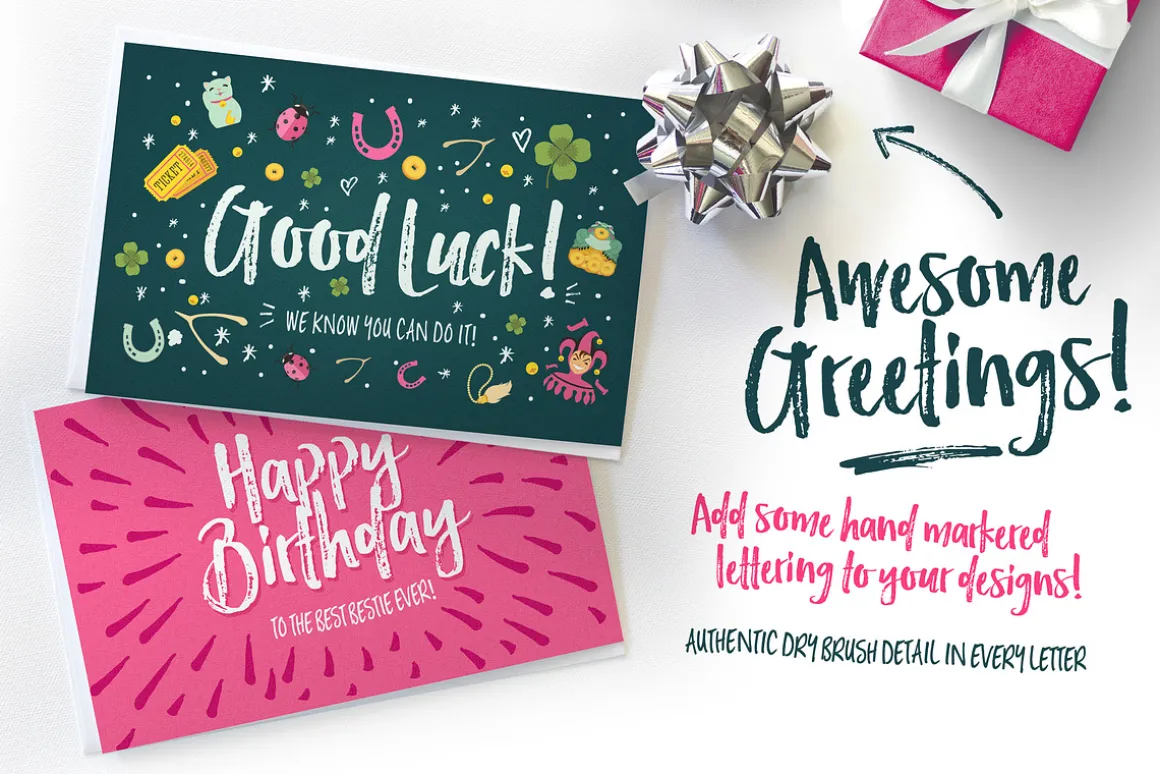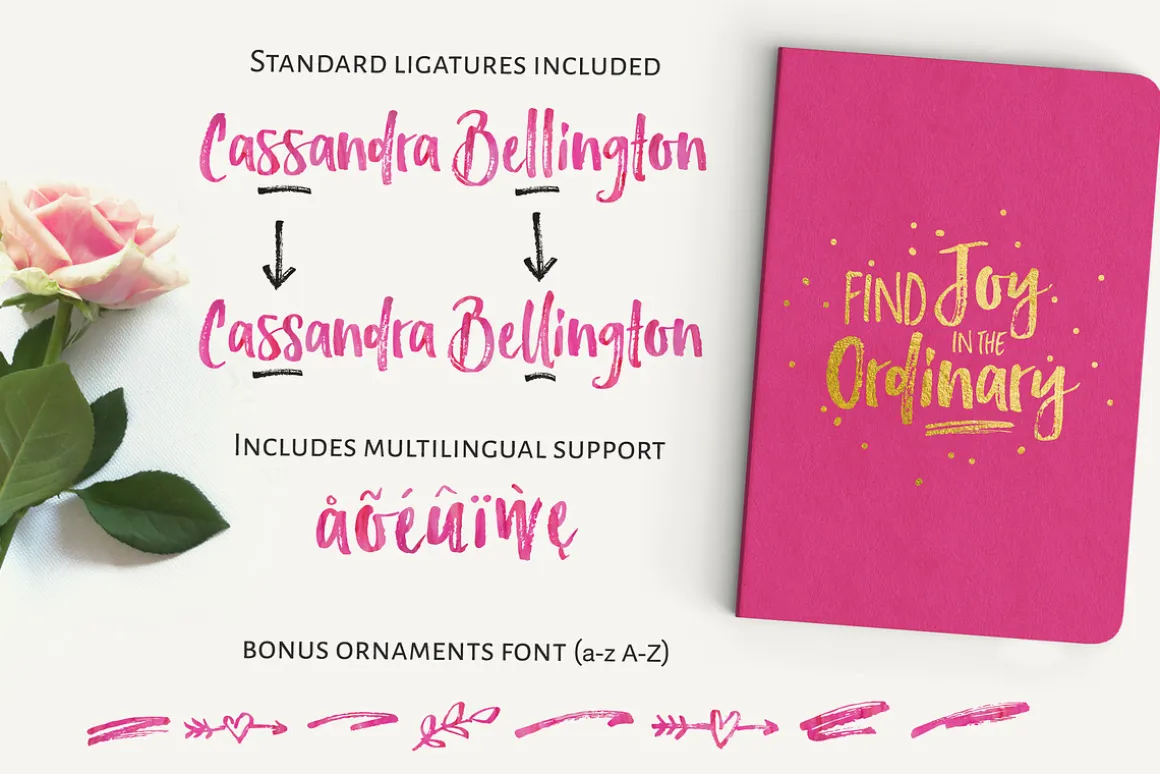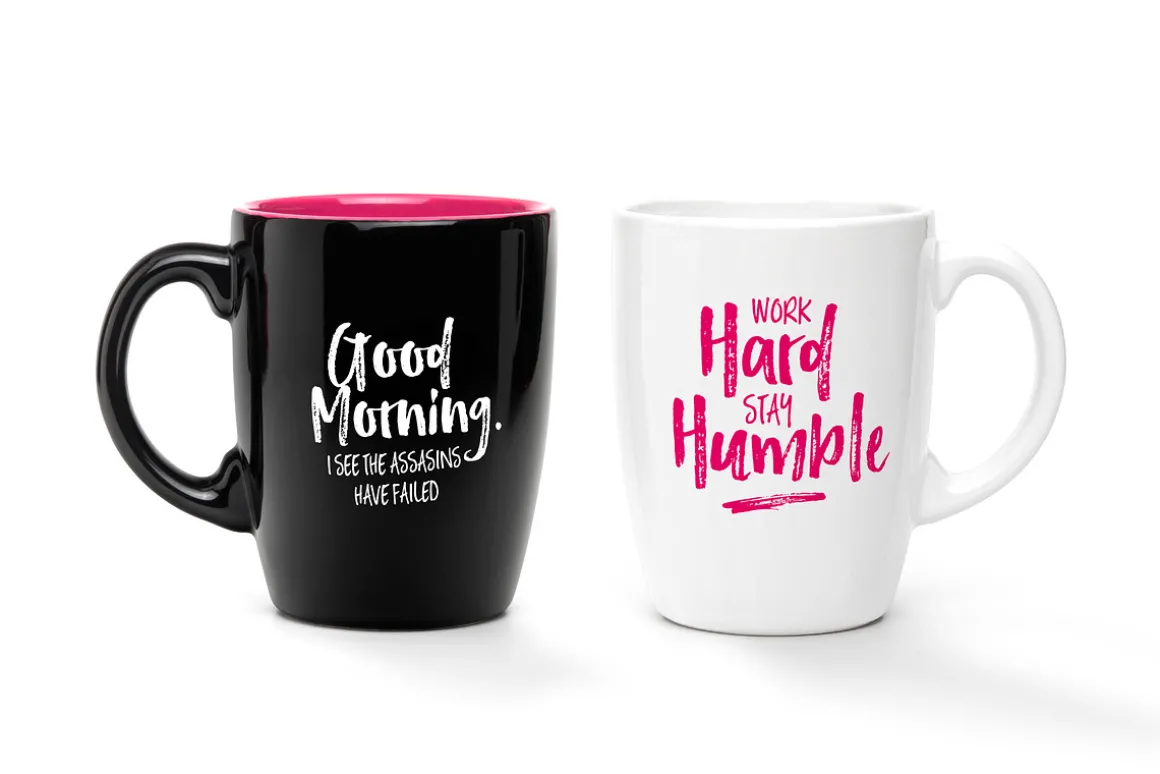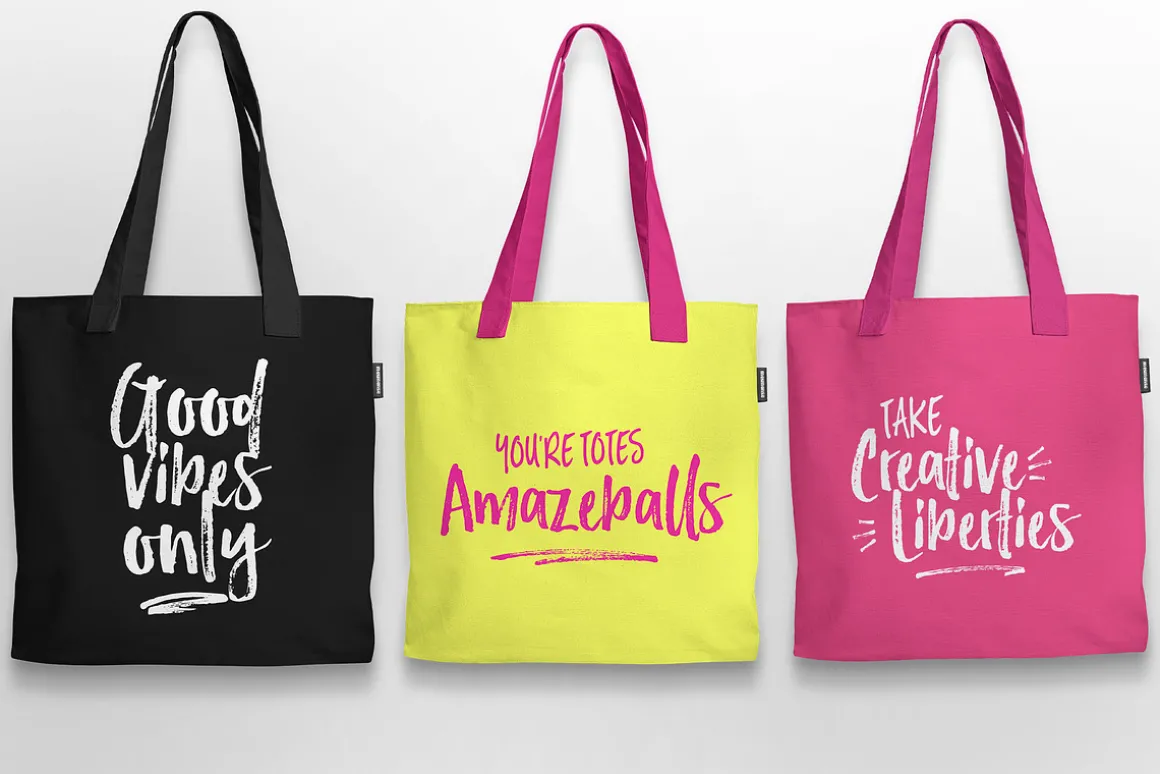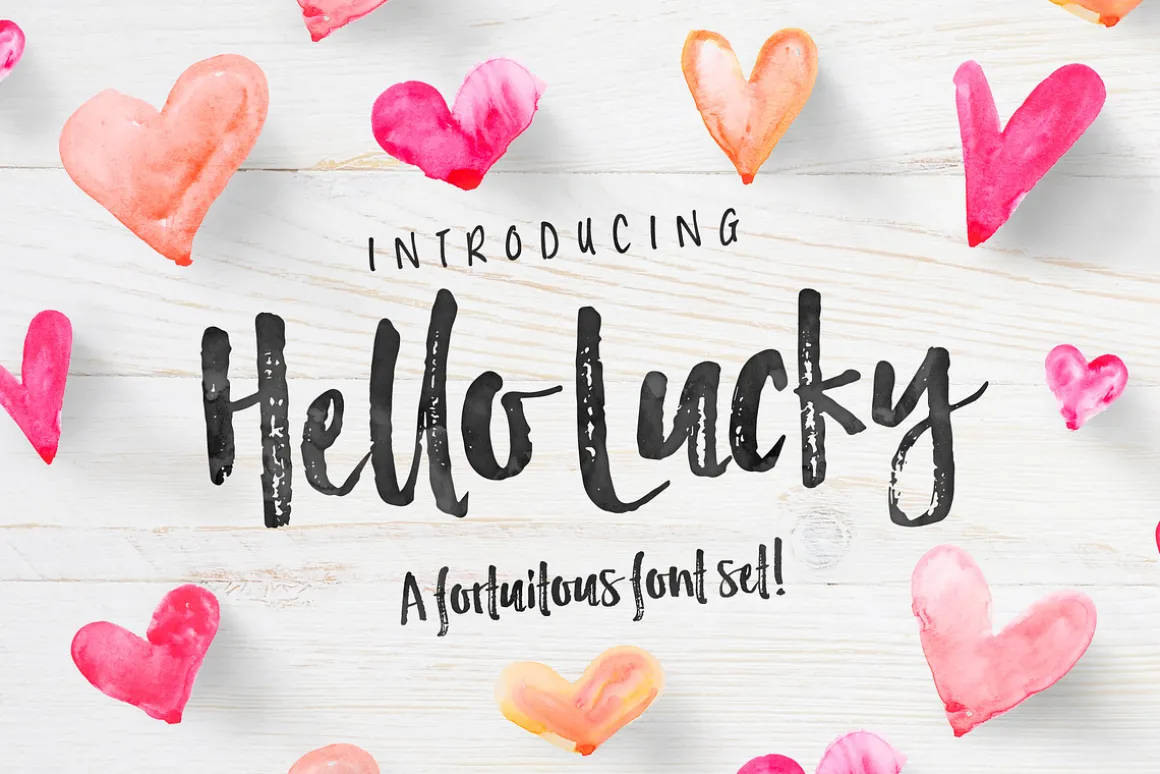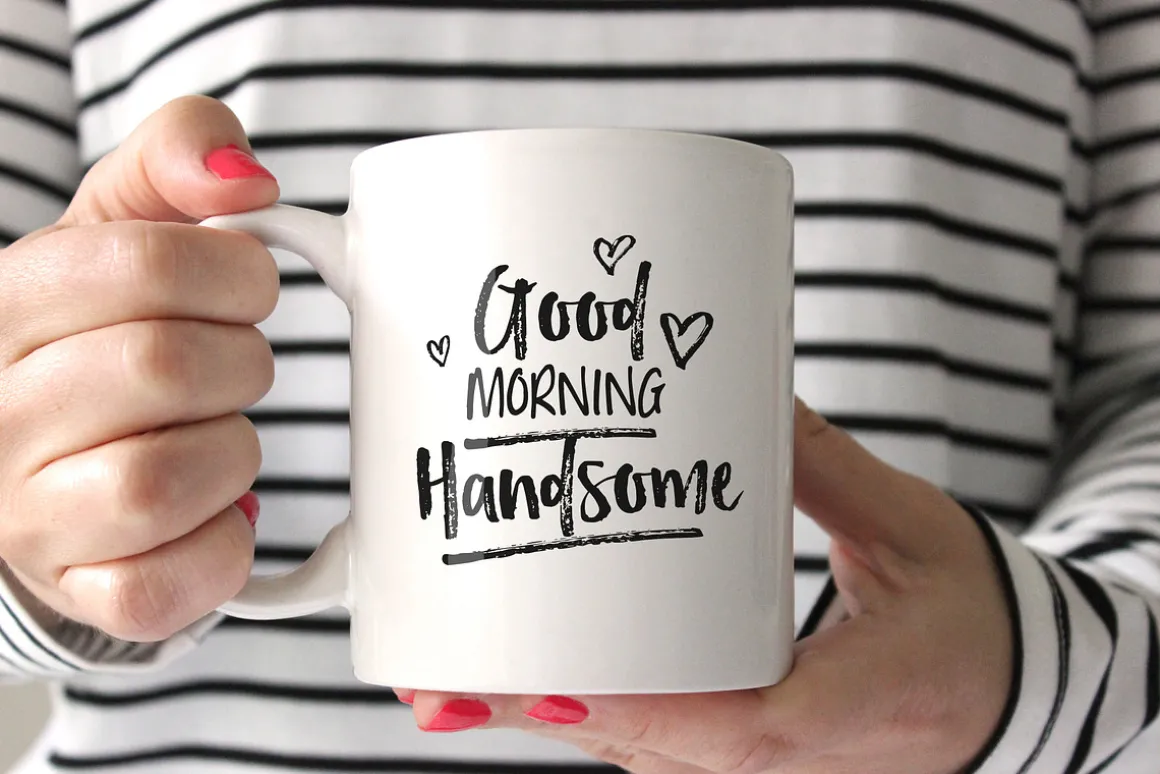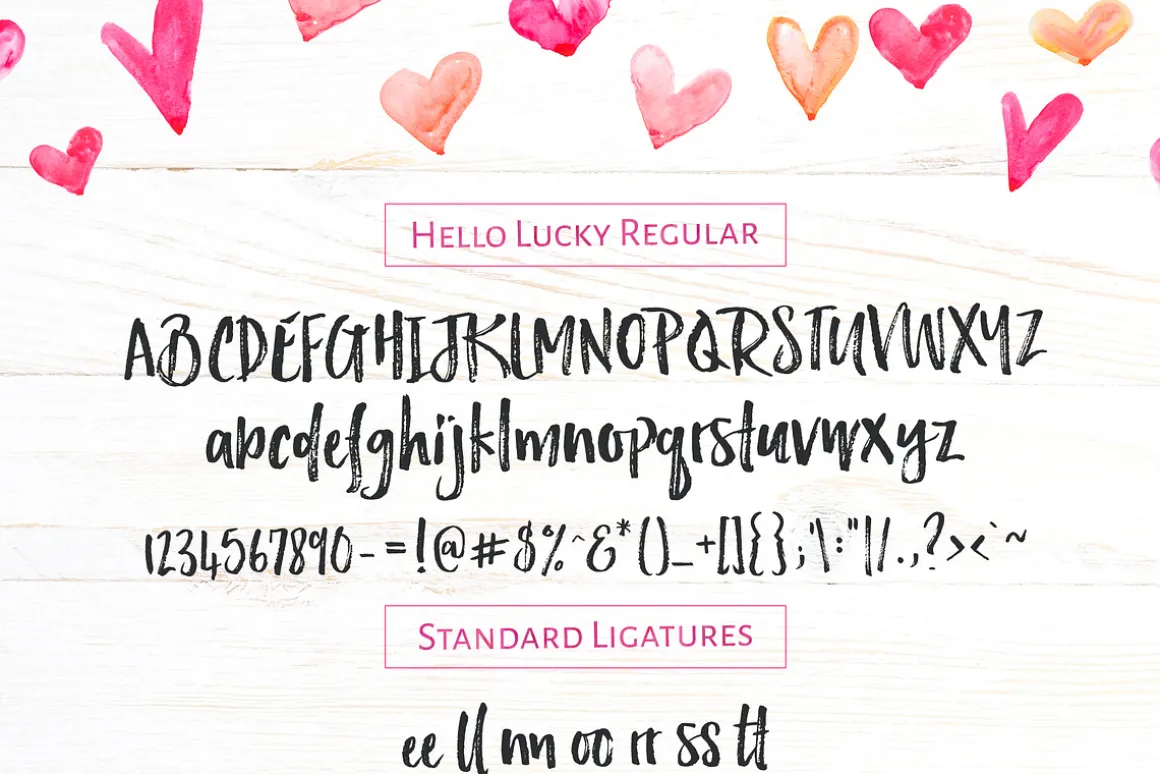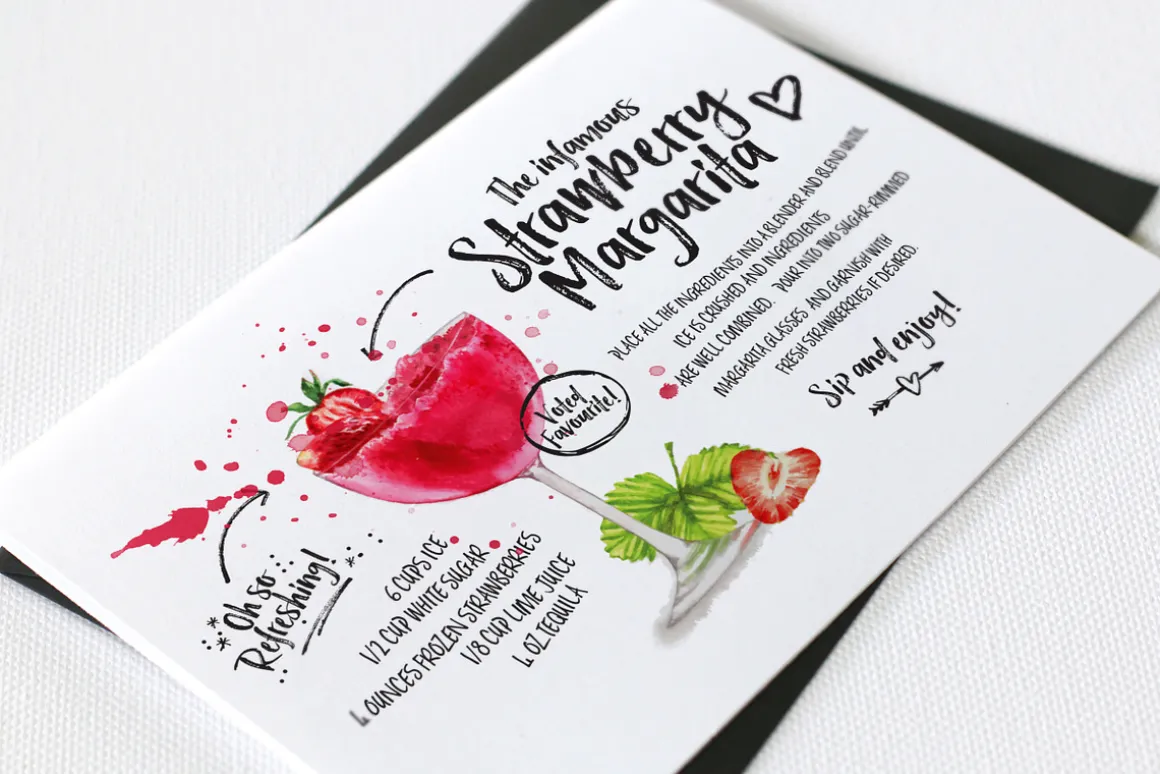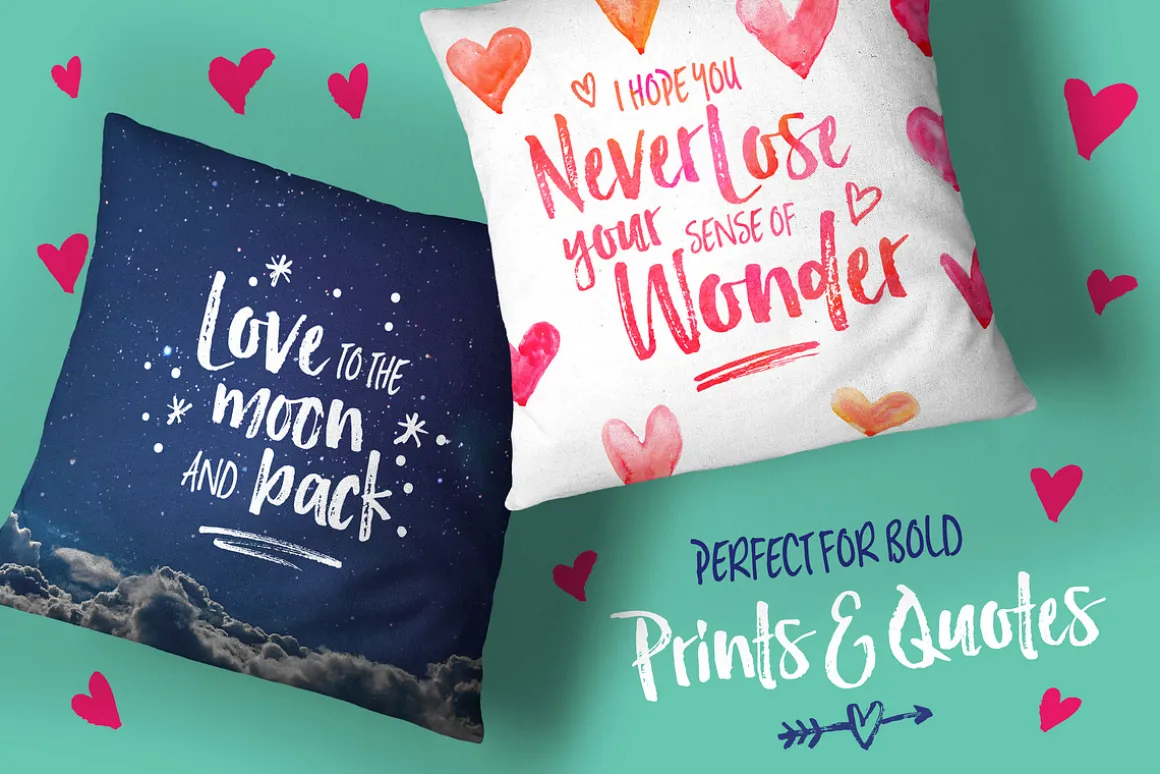
Introducing Hello Lucky! A cheeky little dry marker font, with an inky complimentary font, and oodles of marker-made decorative ornaments.
Just type out your design , and then make it pop with the bonus font , and extra scribbles, doodles and rushed underlines from the ornaments font 🙂
On its own,or with the extras – Hello Lucky is bound to make a statement 🙂
Hello Lucky has standard ligatures included – to give the font a more natural, scripted look when you have any double letters in your design. It also has multilingual support with accented characters for international users.
A Fortuitous Font Set: Hello Lucky Ink is a complimentary inked font, that works in harmony with Hello Lucky to create awesome typographical creations in a jiffy – get some inspiration for the previews above.
Which international languages does Hello Sunshine support? Hello Lucky Supports the following languages : Basque, Bosnian, Catalan, Cornish, Croatian, Danish, Dutch, English, Esperanto, Estonian, Filipino, Finnish, French, Galician, German, Gusii, Hungarian, Indonesian, Irish, Italian, Norwegian Bokmål, Norwegian Nynorsk, Portuguese, Romansh, Slovenian, Spanish, Swedish, and Swiss German.